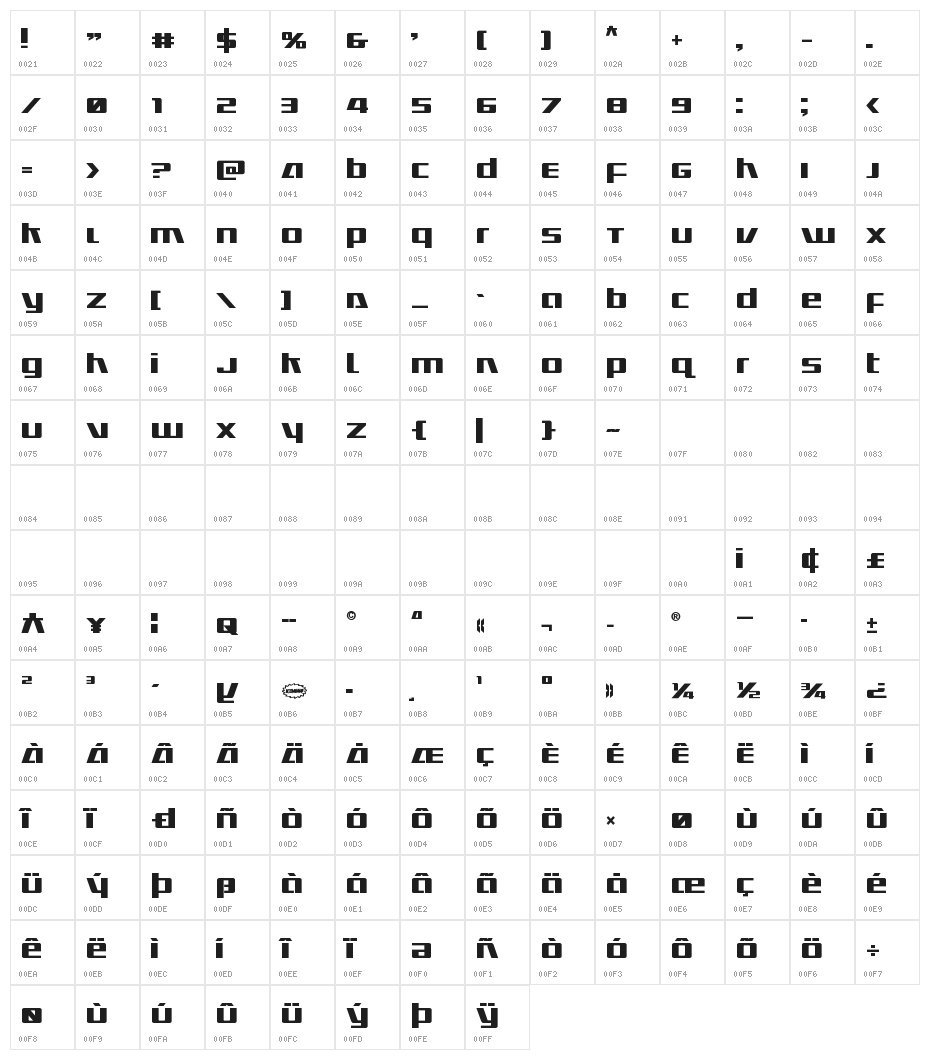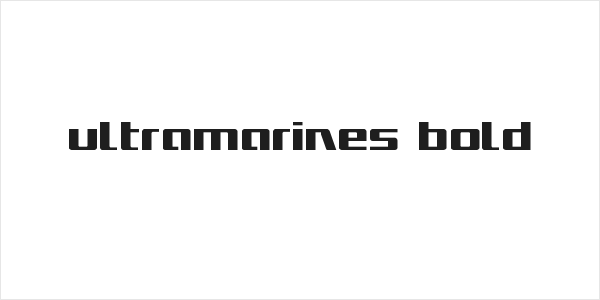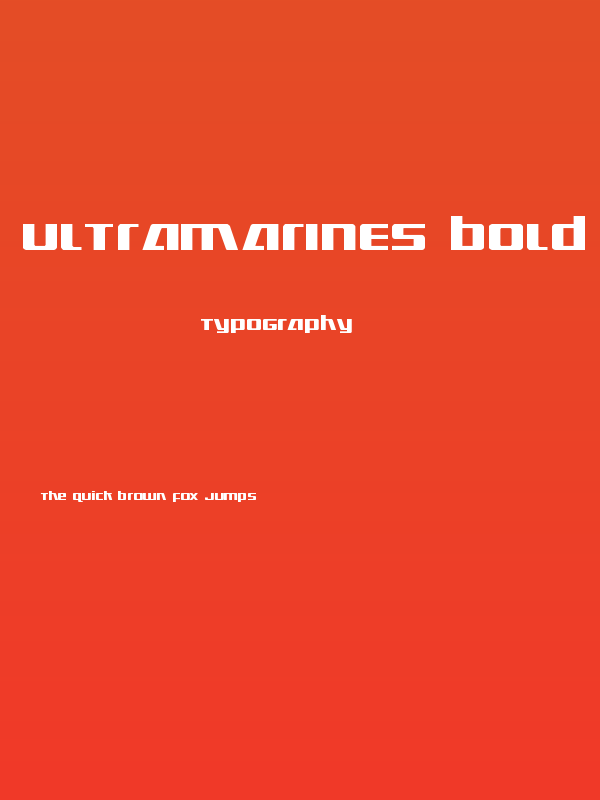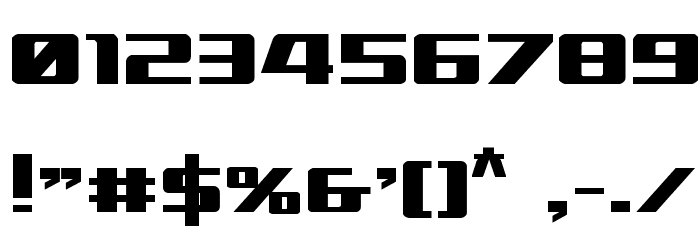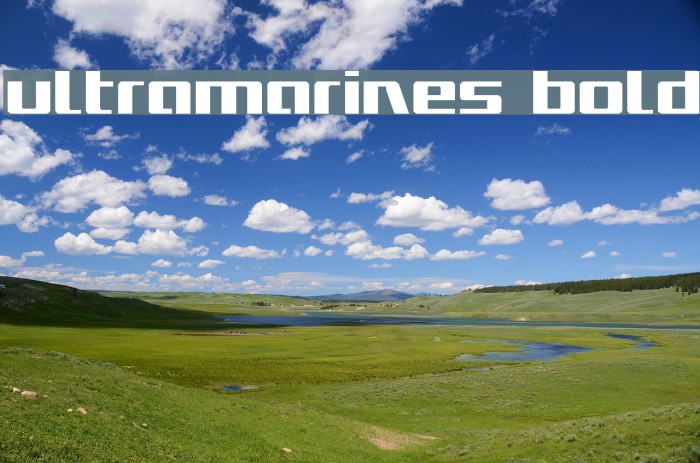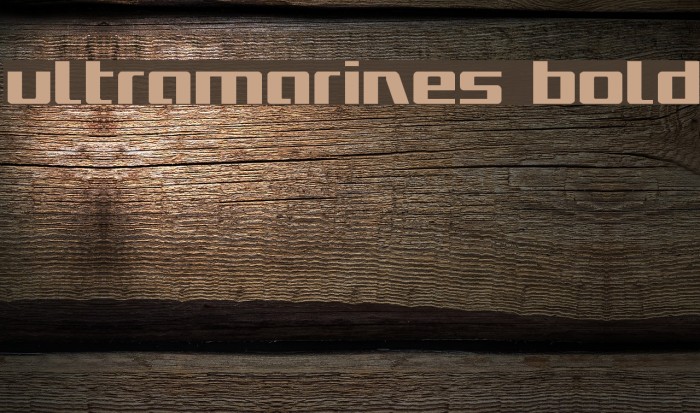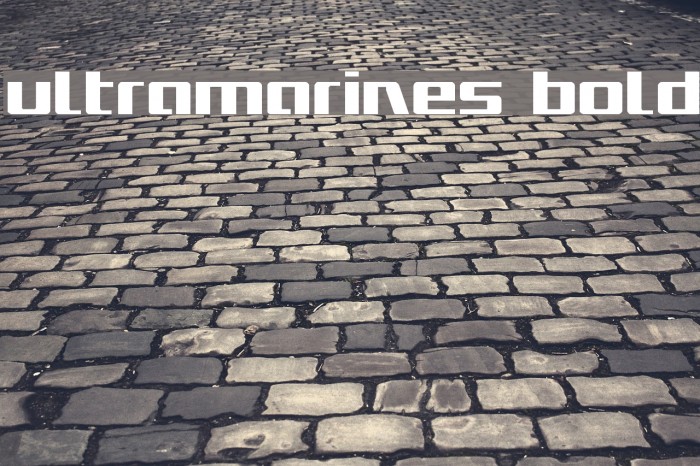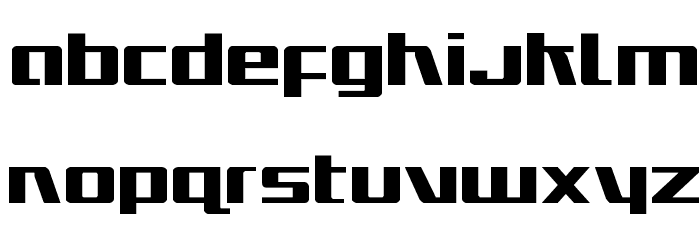
Ultramarines Bold Font
Ultramarines Bold Description
This font features a bold, geometric style with strong, angular lines and a futuristic appearance. The characters are uniformly thick, giving it a robust and impactful look. The uppercase and lowercase letters maintain a consistent design, with sharp edges and a blocky structure. The numerals follow the same bold and angular theme, ensuring readability and uniformity across all characters. Special characters are designed to match the overall aesthetic, making this font suitable for modern and dynamic applications.